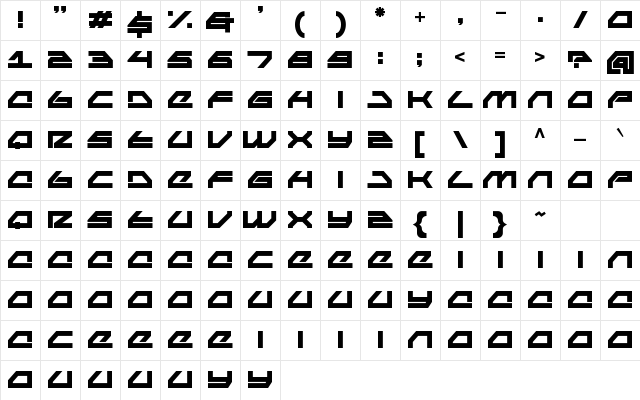
MAKQU Regular Free Font
MAKQU Regular
Designer: Maikohatta
Complete MAKQU Regular glyph index. Displaying only characters natively supported by MAKQU Regular font.
Design Context for MAKQU
MAKQU is a composed and adaptable typeface that performs quietly and consistently across a wide range of design contexts.